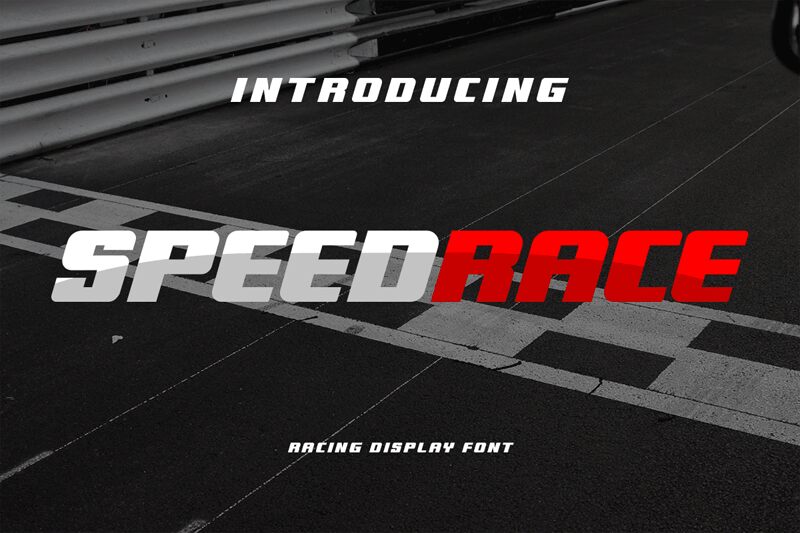
SPEEDRACE
SPEEDRACE, a bold and expanded sans serif font designed by Kong Font, brings a dynamic touch to your projects.
With its sleek and modern appeal, it is the perfect choice for creating attention-grabbing racing-related designs. Its bold weight emphasizes the sense of speed and excitement, while the expanded width adds a unique visual impact. Whether you're designing race posters, sports logos, or car-themed websites, SPEEDRACE will inject energy into your project and make it stand out from the competition.